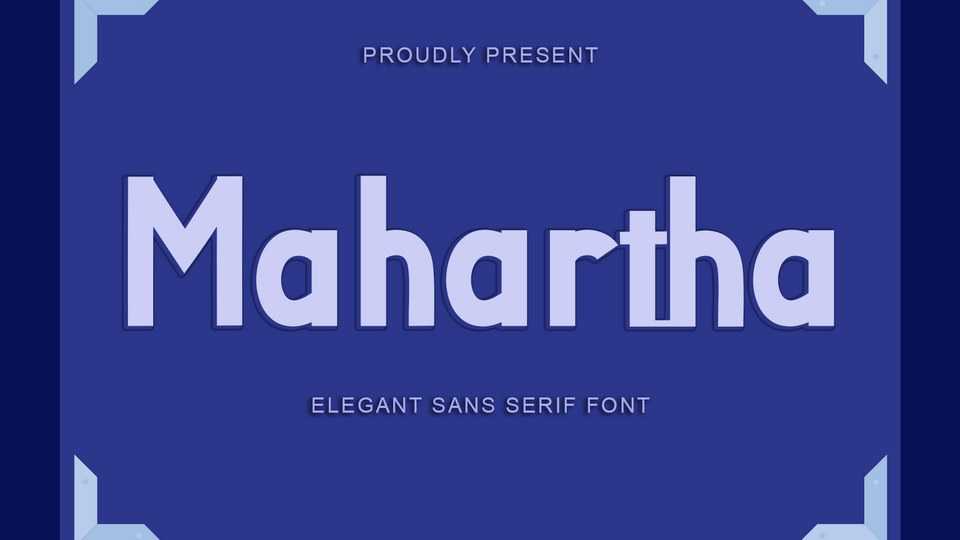
Download Mahartha font, a sans serif typeface, a very friendly and neat, so it can be used for all your work. Mahartha font is very easy to use and apply.